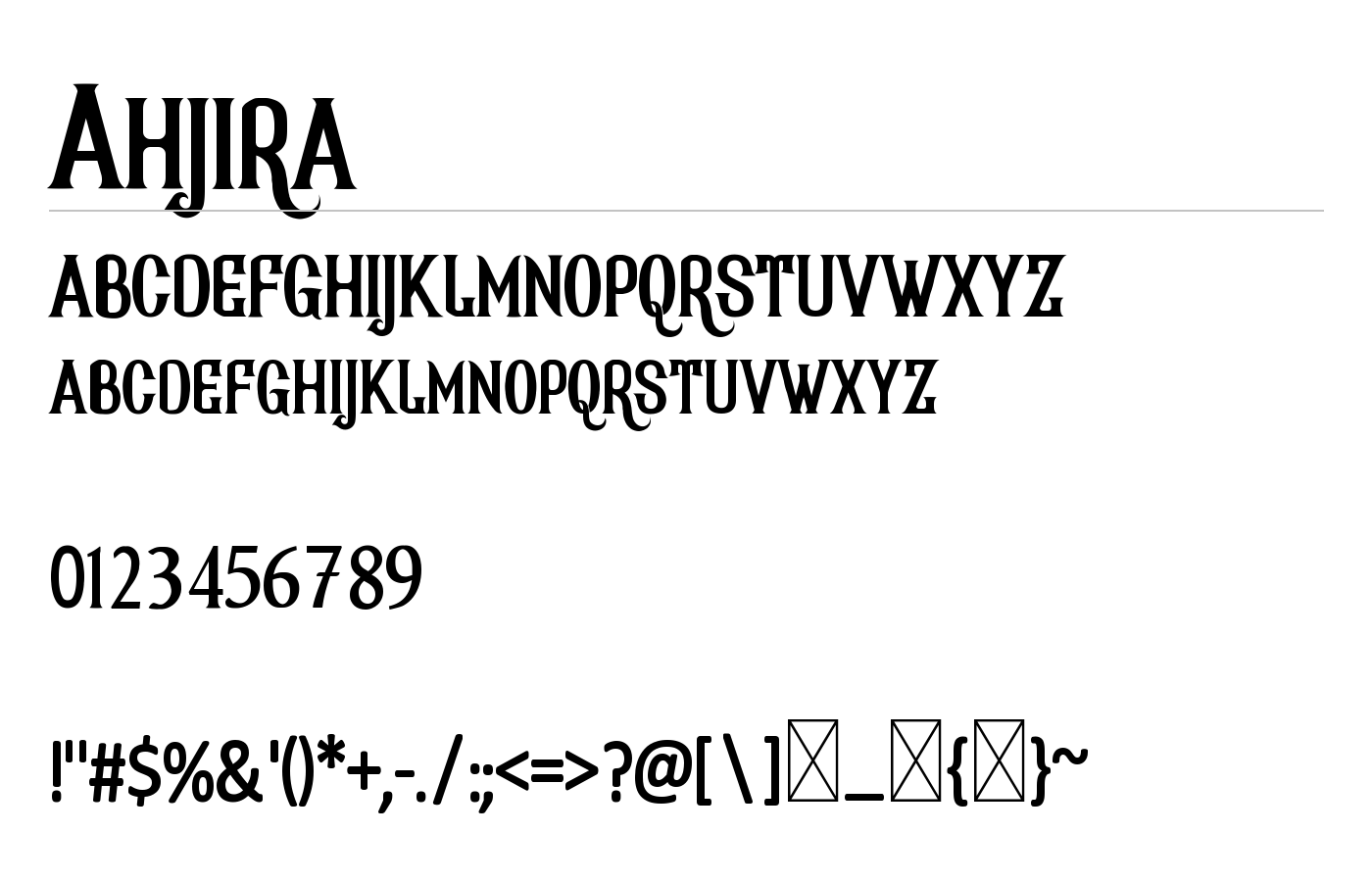
Ahjira is a distinctive serif font with a vintage, decorative flair, featuring sharp, bold strokes and unique curved elements on select letters that add character and elegance. Its condensed proportions and high contrast between thick and thin lines make it perfect for eye-catching headlines, logos, and branding that seek a classic yet artistic look. This font suits projects in fashion, luxury, and editorial design where a sophisticated and memorable impression is desired.
Ahjira Font